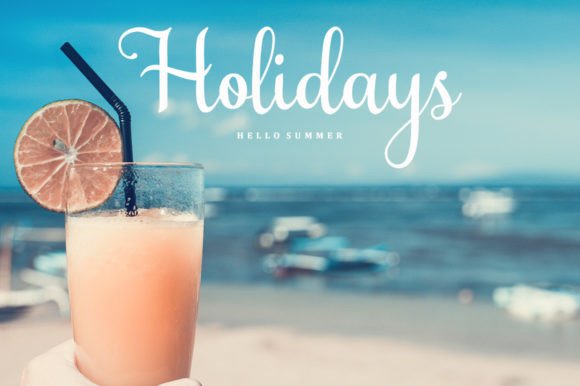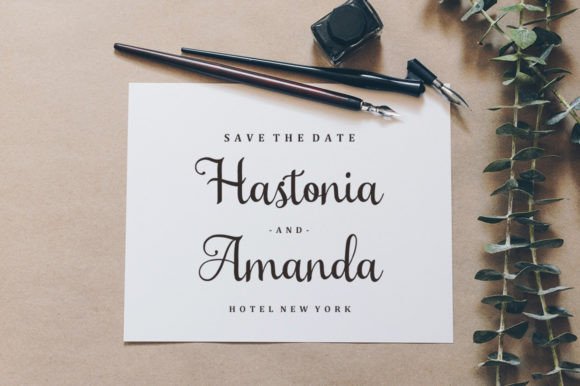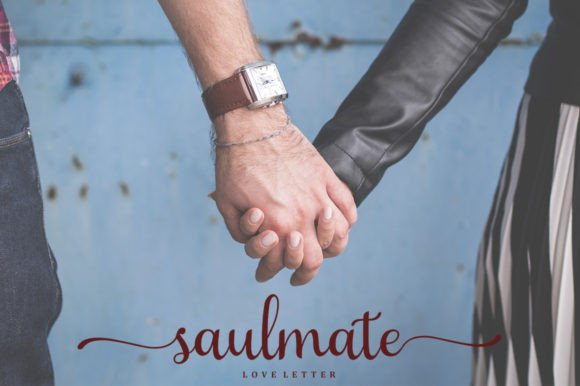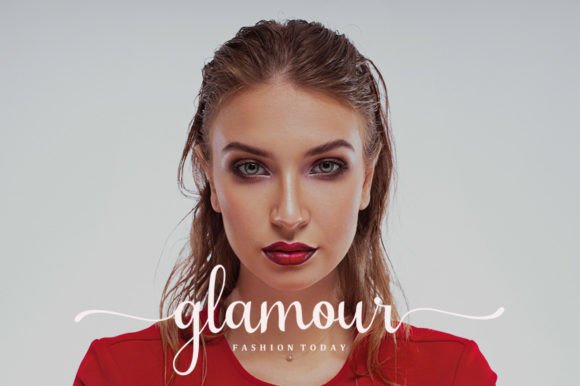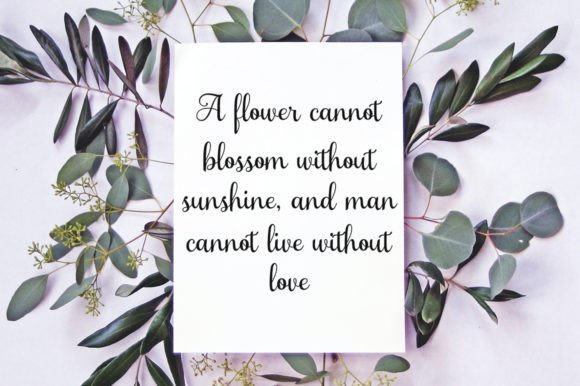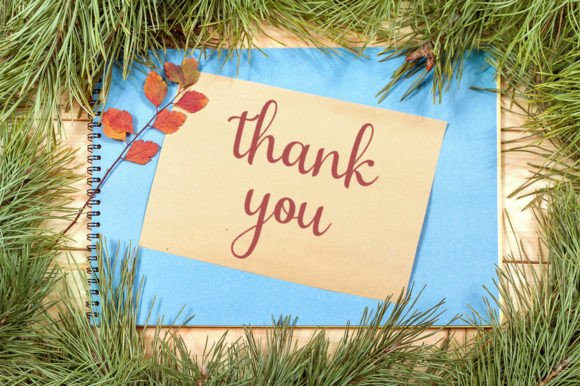
Amtersan Font
Amtersan Handwritten Font – Elegant and Flowing Typeface
The Amtersan Handwritten Font is a delicate and stylish script typeface designed to bring timeless beauty to your creative projects. With its graceful handwritten strokes and balanced flow, it delivers elegance and charm in every detail. Whether you are working on invitations, greeting cards, or branding projects, this font ensures your designs feel refined and unique.
A Handwritten Script with Elegance
The Amtersan Handwritten Font blends smooth handwritten curves with carefully crafted proportions. Its flowing style creates a romantic, timeless effect, while its readability makes it practical for a wide range of applications. Because of this, it can be used with confidence in both decorative and professional design projects.
One of the best uses of the Amtersan Handwritten Font is in wedding invitations, thank-you notes, and greeting cards. Its elegant strokes add sophistication and warmth to personal messages. At the same time, it works beautifully for logos, posters, and packaging, making it ideal for branding projects that need a personal yet polished look.
Versatility for Creative Projects
The Amtersan Handwritten Font adapts well to many design contexts. From social media graphics and website headers to business cards and magazine layouts, it adds a graceful handwritten touch. Its balance of elegance and clarity makes it suitable for both print and digital projects.
Why Designers Love Amtersan Font
Designers appreciate the Amtersan Handwritten Font for its ability to combine elegance with usability. Its flowing handwritten style makes it perfect for romantic and creative designs, while its clarity ensures it remains professional. This balance makes it a valuable asset for any design library.
In summary, the Amtersan Handwritten Font is a delicate, elegant, and versatile script typeface. With its timeless handwritten strokes, quick installation, and broad usability, it is perfect for invitations, logos, greeting cards, and branding. Don’t miss the chance to download Amtersan Handwritten Font and add a touch of elegance to your next project.